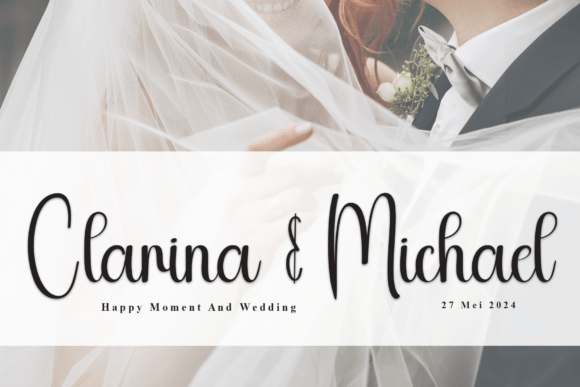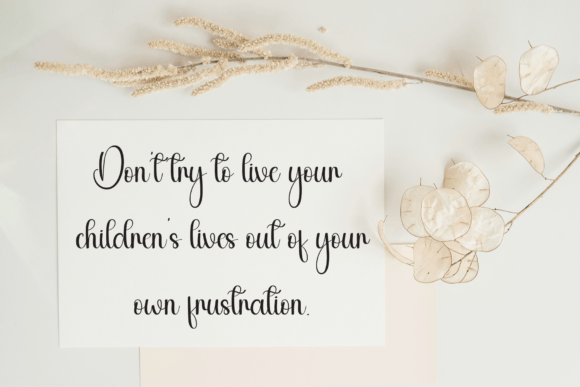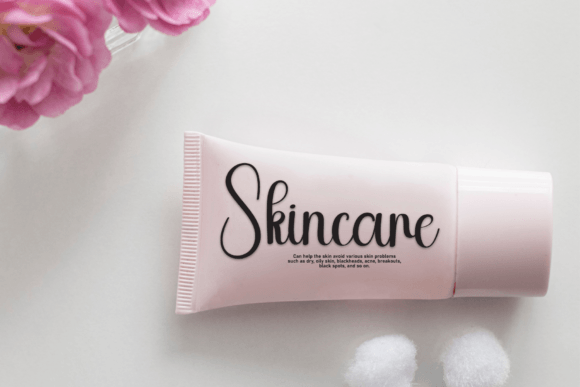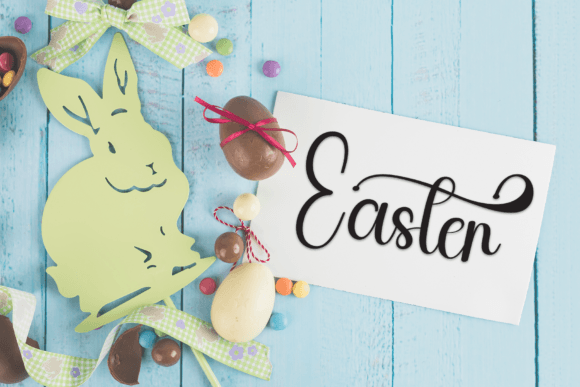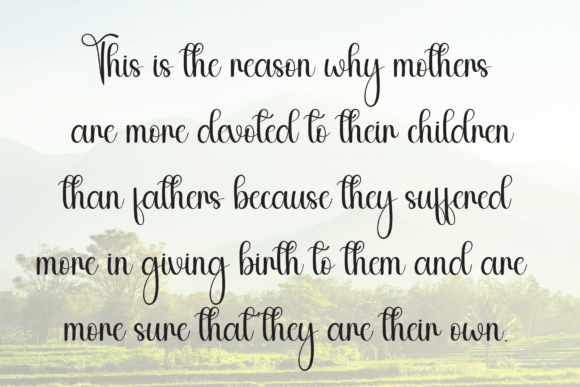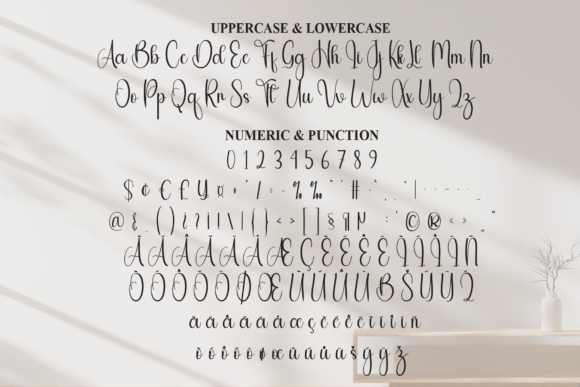
Grateful Font: The Perfect Handwritten Font for Your Design Projects
Are you looking for a font that can add a touch of warmth and friendliness to your design projects? Look no further than the Grateful Font! This charming and inviting handwritten font is perfect for crafting heartfelt wedding invitations, cheerful greeting cards, or any design project that requires an infusion of fun and ebullience.
What is Grateful Font?
Grateful Font is a beautifully designed handwritten font that exudes a sense of warmth and friendliness. Its lovely, whimsical style makes it perfect for a variety of design projects, from wedding invitations and greeting cards to posters, flyers, and more. With its unique and charming character, Grateful Font is sure to capture the attention of your audience and leave a lasting impression.
Features of Grateful Font
Grateful Font has several features that make it an ideal choice for designers and crafters. Some of its key features include:
- Handwritten style: Grateful Font has a beautiful handwritten style that gives it a personal and unique touch.
- Whimsical design: The font’s whimsical design makes it perfect for design projects that require a touch of fun and playfulness.
- Easy to read: Despite its handwritten style, Grateful Font is easy to read and understand, making it perfect for body text and headings.
- Versatile: Grateful Font can be used for a variety of design projects, from wedding invitations and greeting cards to posters, flyers, and more.
Uses of Grateful Font
Grateful Font can be used for a wide range of design projects, including:
- Wedding invitations: Grateful Font is perfect for crafting beautiful and heartfelt wedding invitations that will make your guests feel special.
- Greeting cards: The font’s cheerful and playful style makes it ideal for creating fun and engaging greeting cards for special occasions.
- Posters and flyers: Grateful Font can be used to create eye-catching posters and flyers that will grab the attention of your audience.
- Social media graphics: The font’s unique and charming style makes it perfect for creating engaging social media graphics that will help you stand out from the crowd.
Benefits of Using Grateful Font
Using Grateful Font for your design projects has several benefits, including:
- Unique and charming style: Grateful Font has a unique and charming style that will set your design projects apart from the rest.
- High-quality design: Grateful Font is designed to high standards, ensuring that your design projects look professional and polished.
In conclusion, Grateful Font is a charming and inviting handwritten font that is perfect for designers and crafters looking to add a touch of warmth and friendliness to their design projects. With its unique and whimsical style, Grateful Font is sure to capture the attention of your audience and leave a lasting impression. So why wait? Download Grateful Font today and start creating beautiful and engaging design projects!